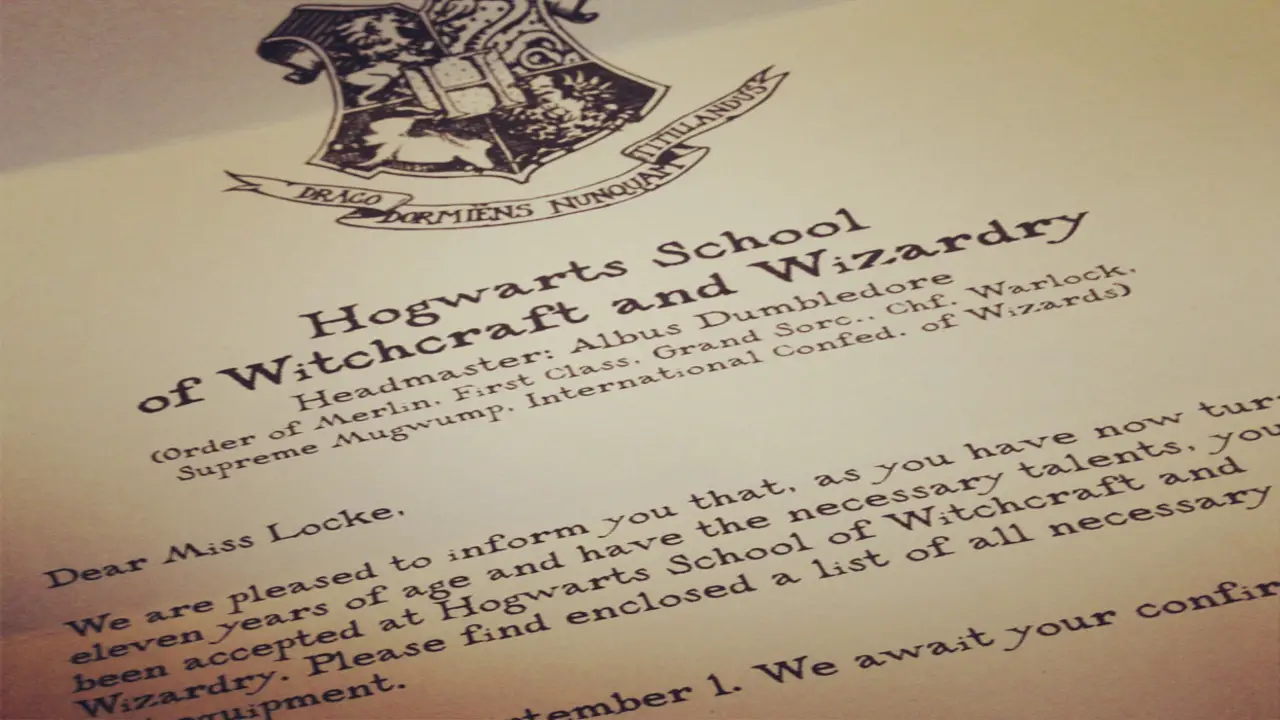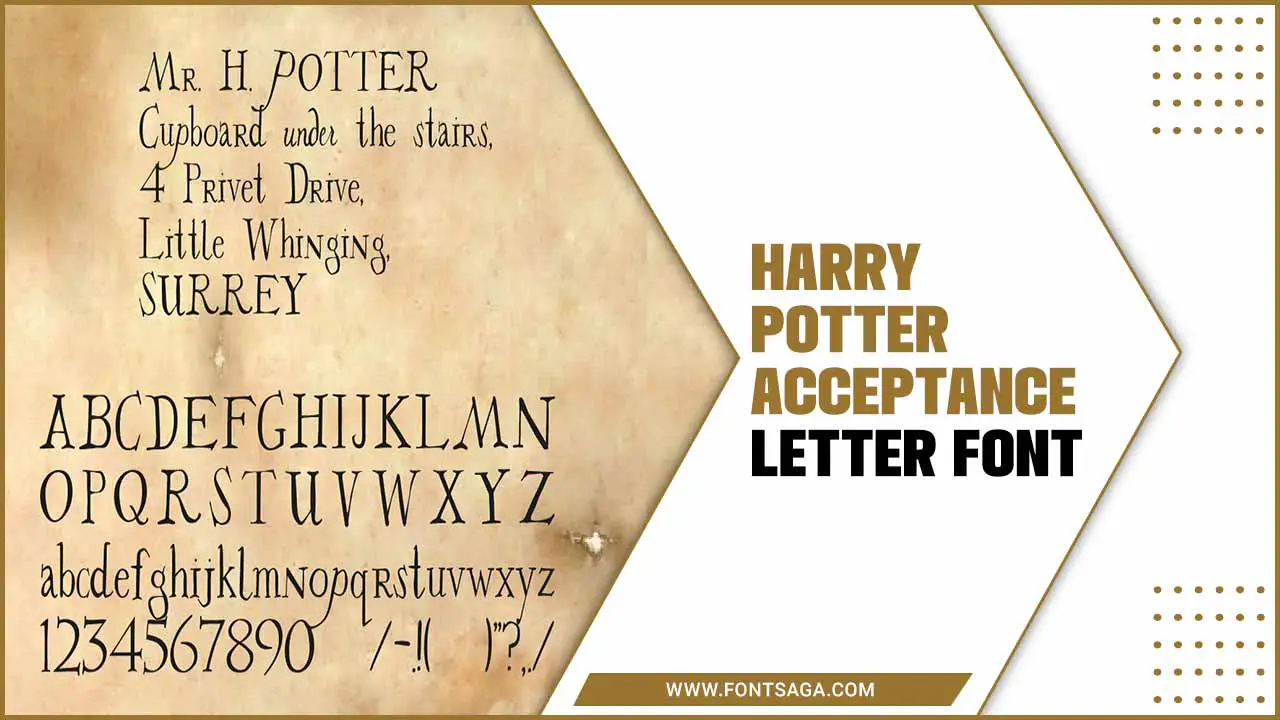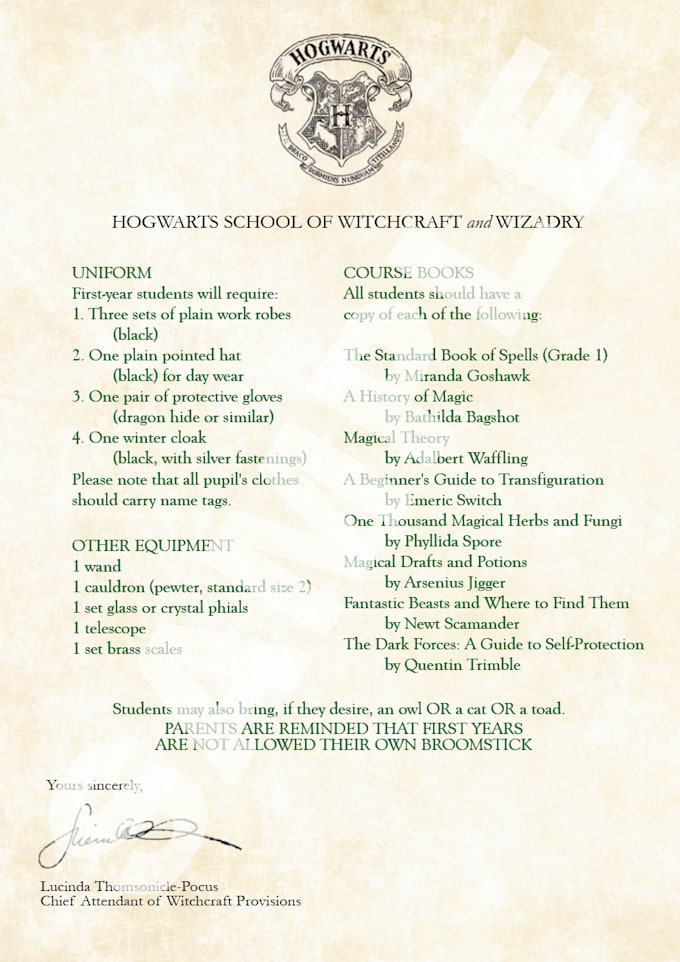
Mastering the Harry Potter Acceptance Letter Font for Creative Design
Discover how to use the enchanting Harry Potter acceptance letter font in design projects for authentic magical flair and audience appeal.
The magic of the Harry Potter acceptance letter font transforms ordinary text into a spellbinding experience, echoing the charm of Hogwarts’ most memorable moments. This distinctive typeface, often characterized by its flowing serifs and elegant curves, captures the essence of tradition and wonder central to the series. Whether used in invitations, stationery, or digital media, it evokes nostalgia while standing out in